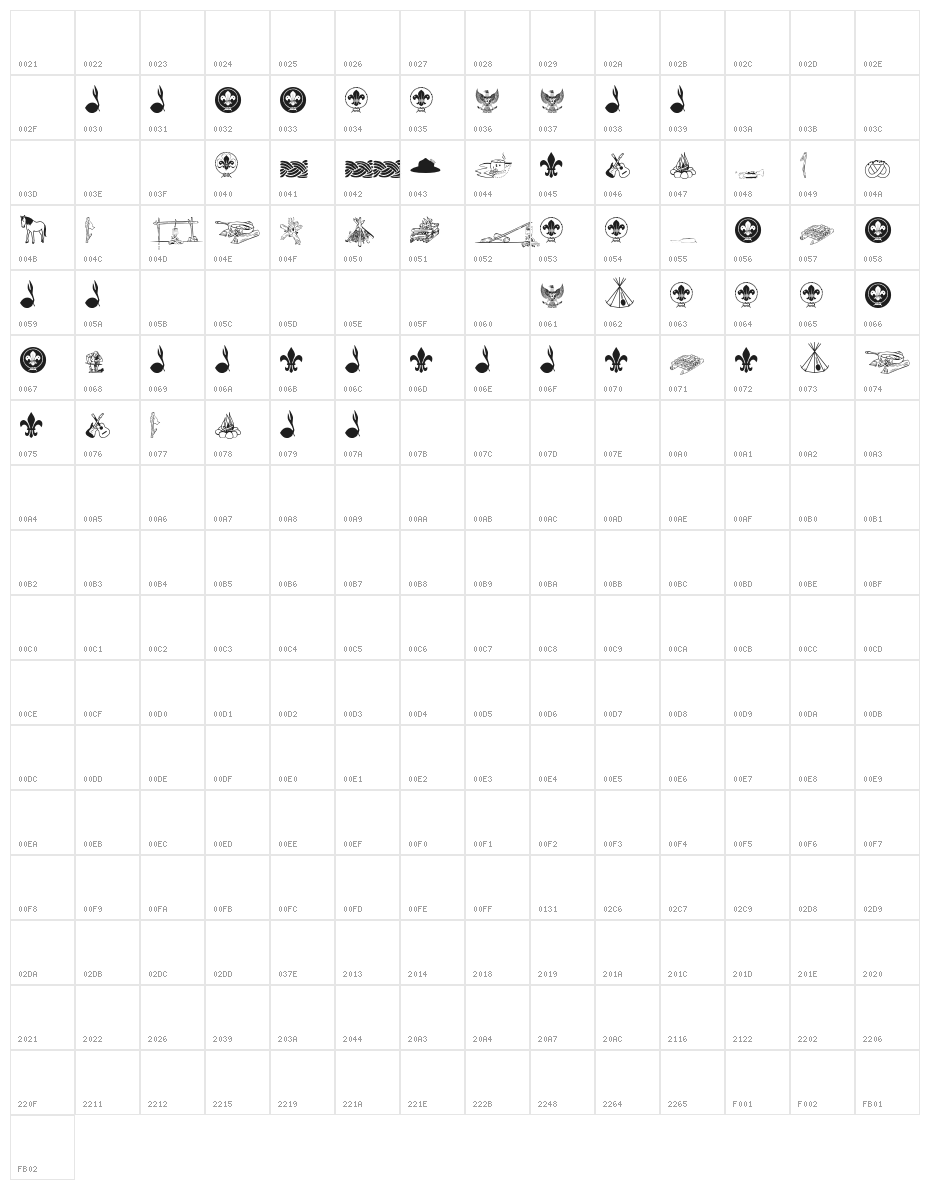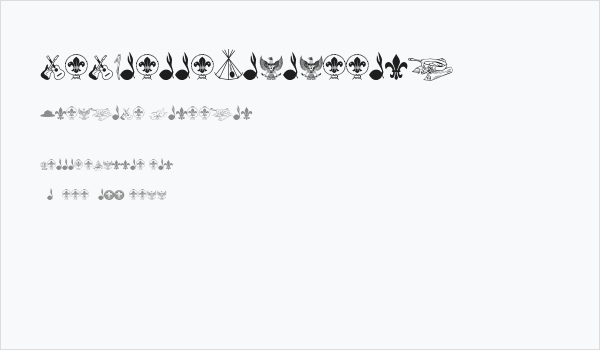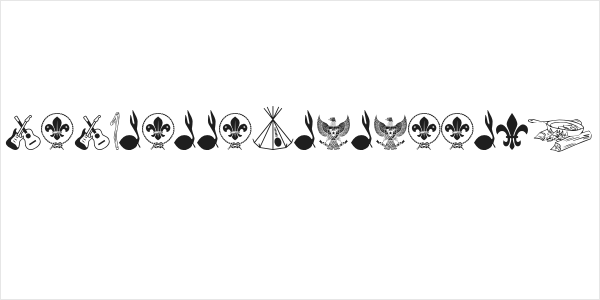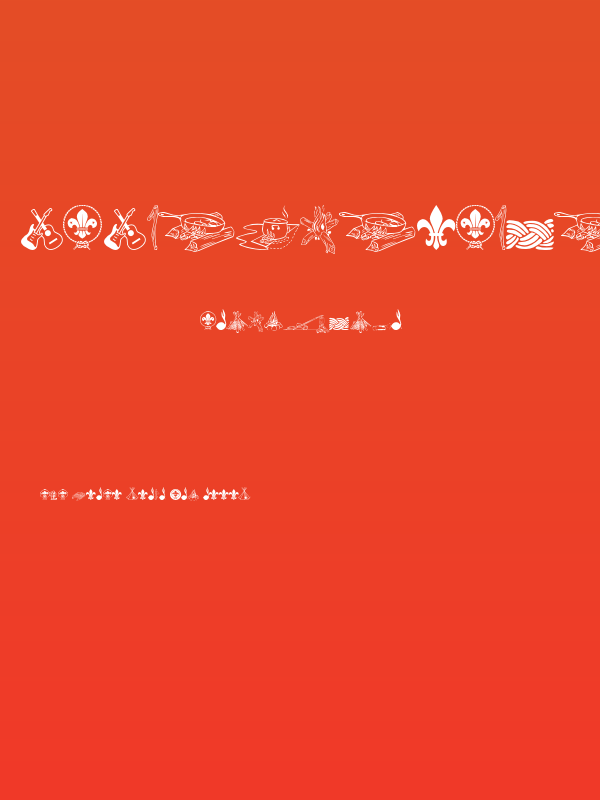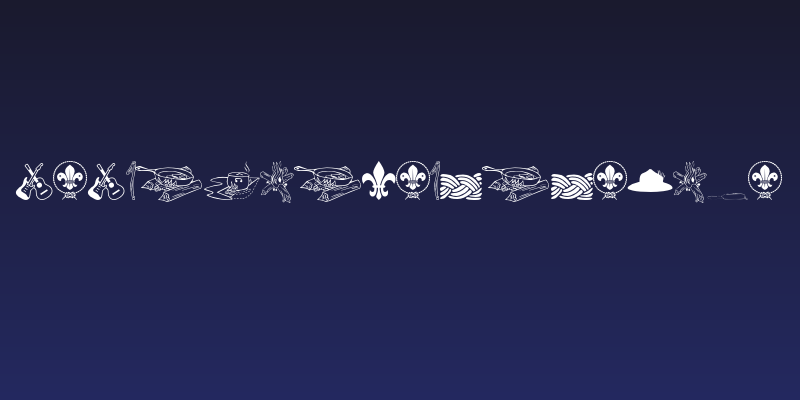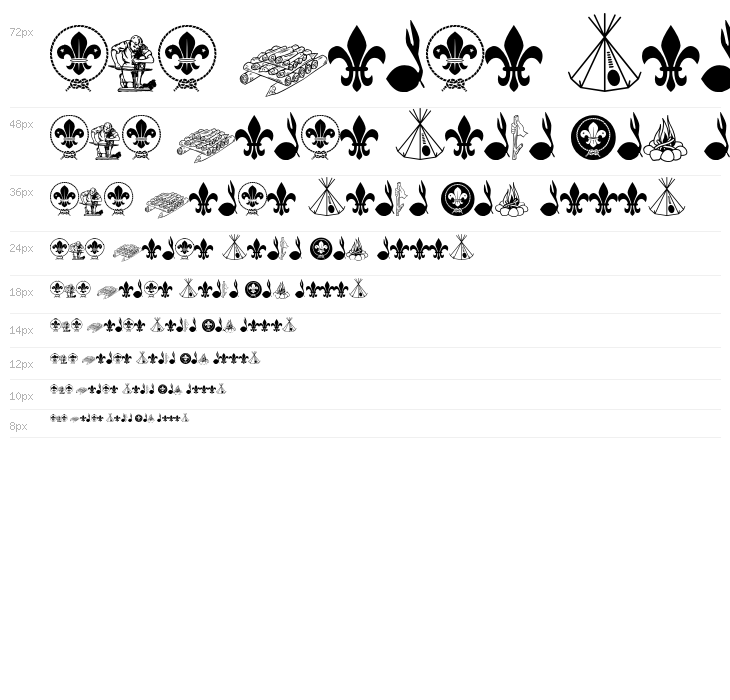
FTFIndonesianaScout Font
FTFIndonesianaScout Description
A decorative dingbat font featuring a variety of scouting-themed icons, including fleur-de-lis symbols, campfires, tents, guitars, cooking pots, animals, and traditional Indonesian scout emblems. The glyphs are highly illustrative and detailed, with both solid and outlined styles, and are not standard alphanumeric characters.
| Overall Style | Decorative, Thematic, Illustrative |
| Use Case | Icons, Decorative elements, Themed graphics |
| Proposed Projects | Scouting event posters, badges, certificates, themed invitations, educational materials, scrapbooking. |